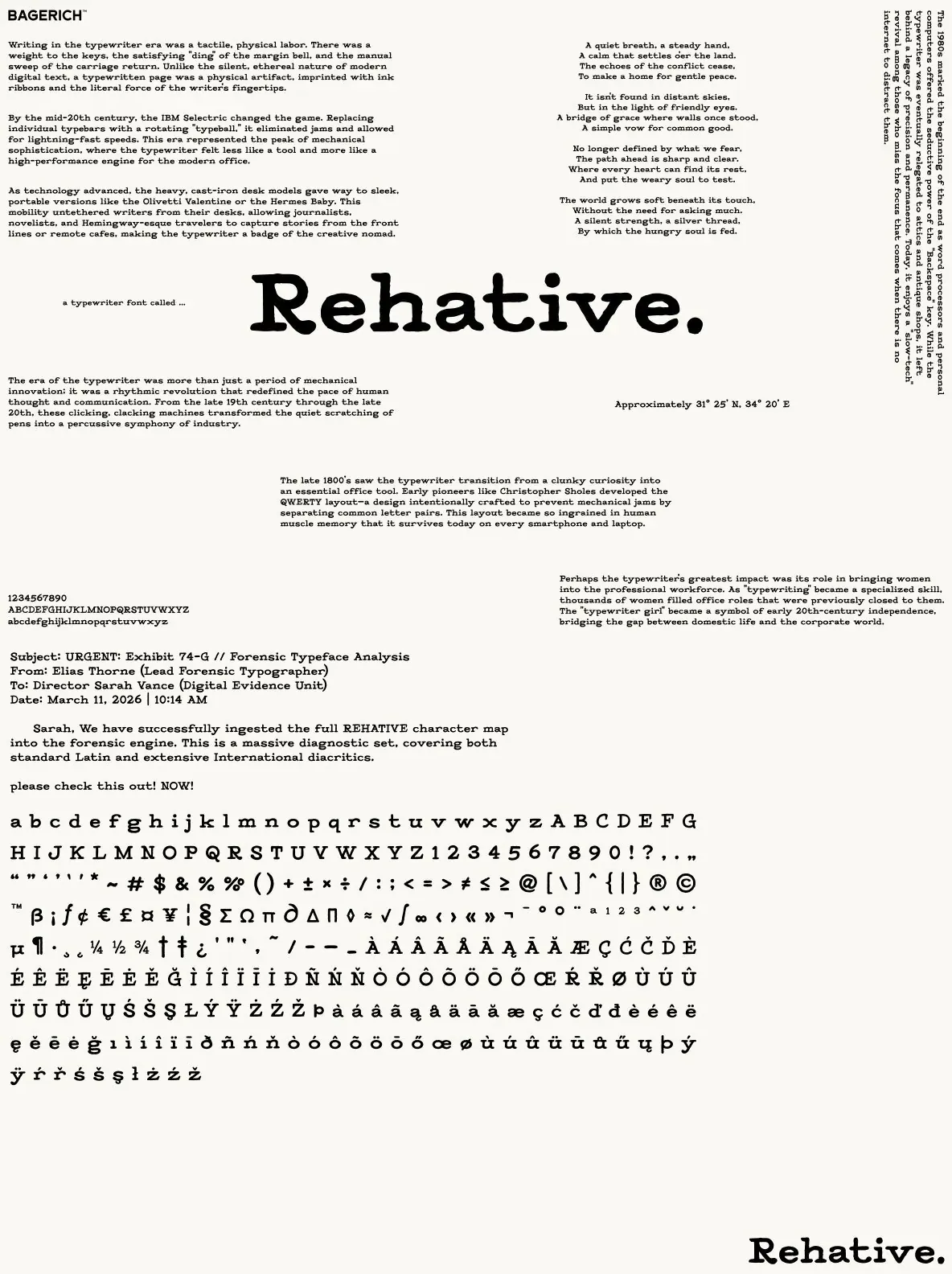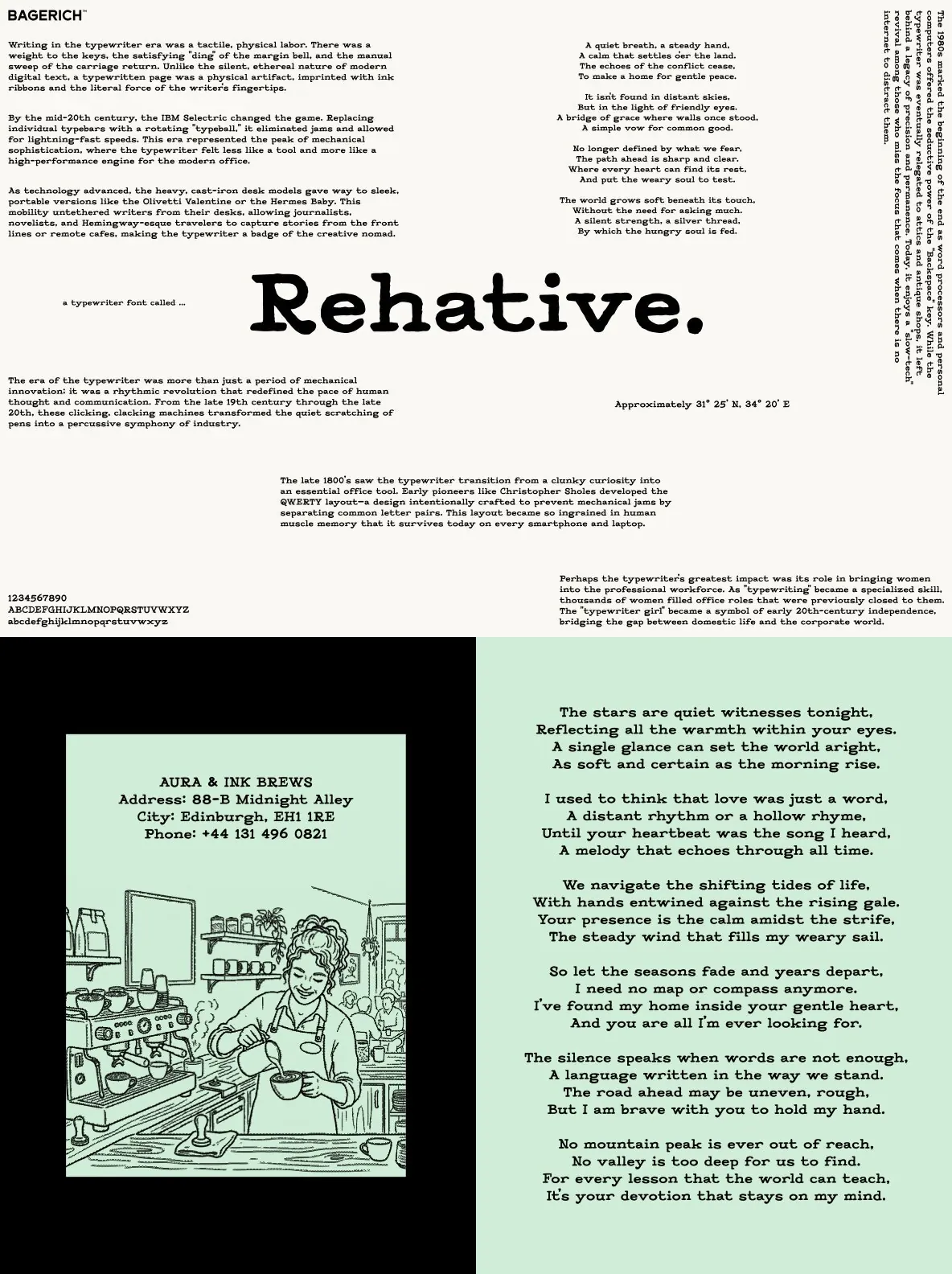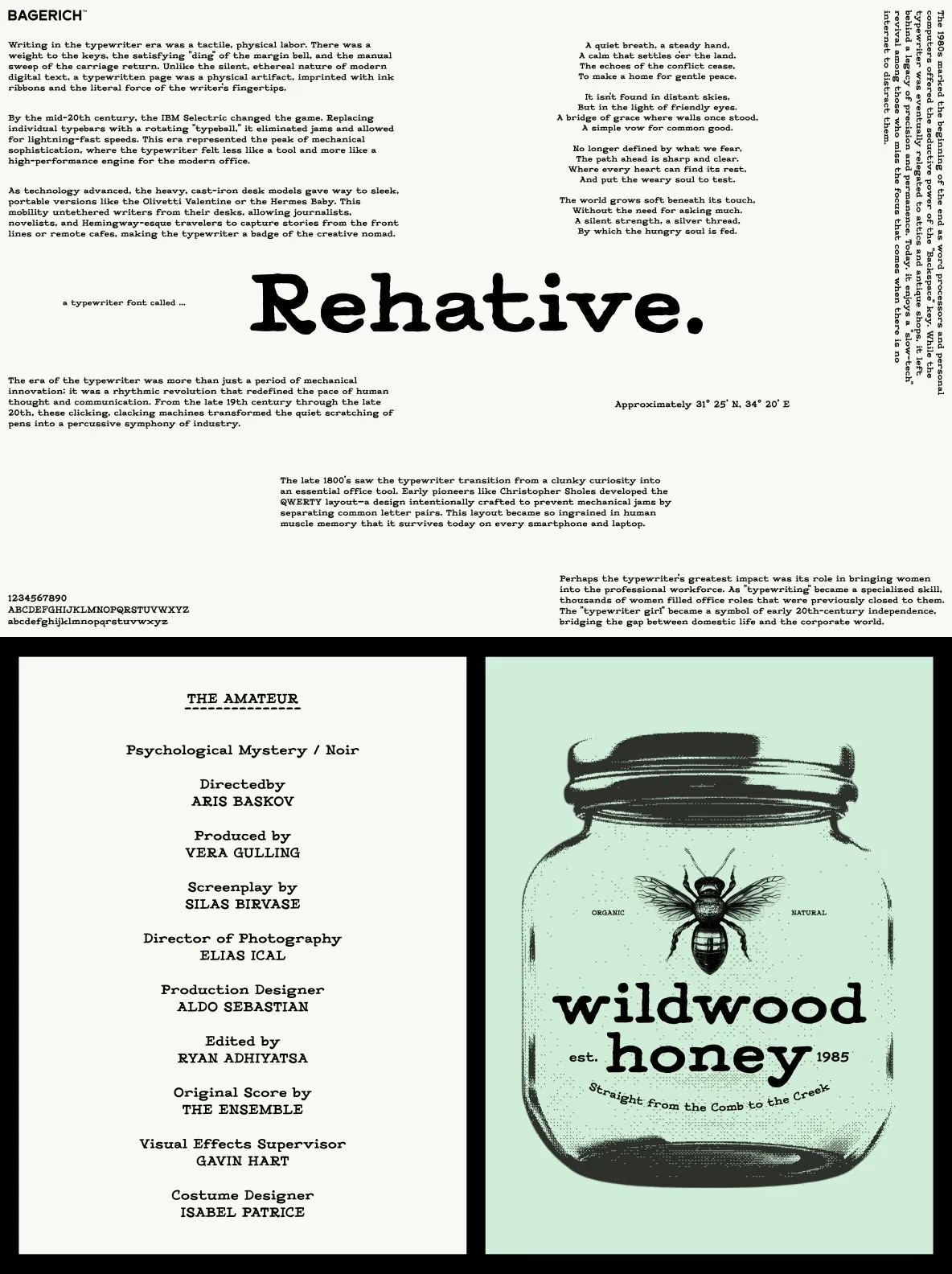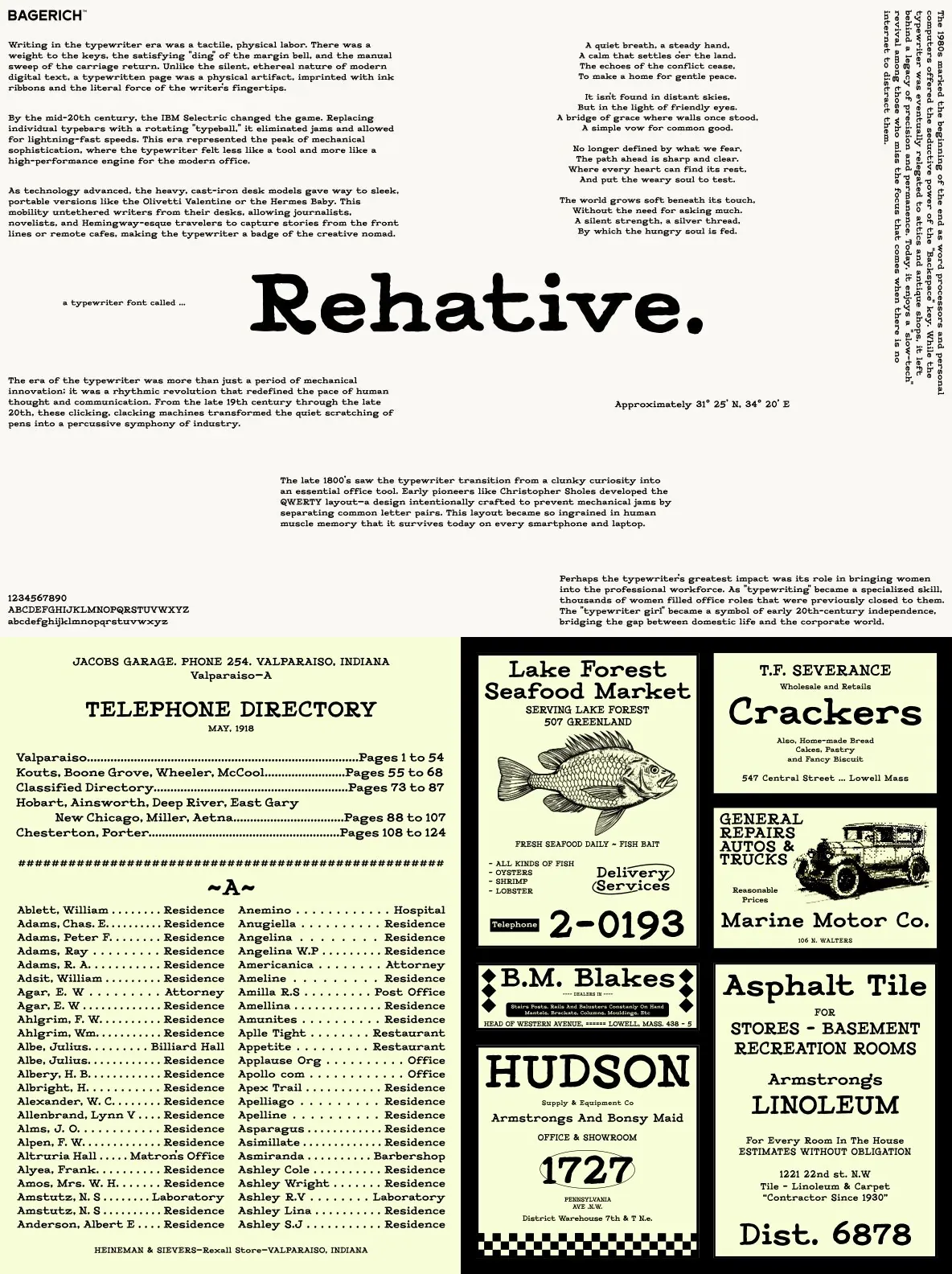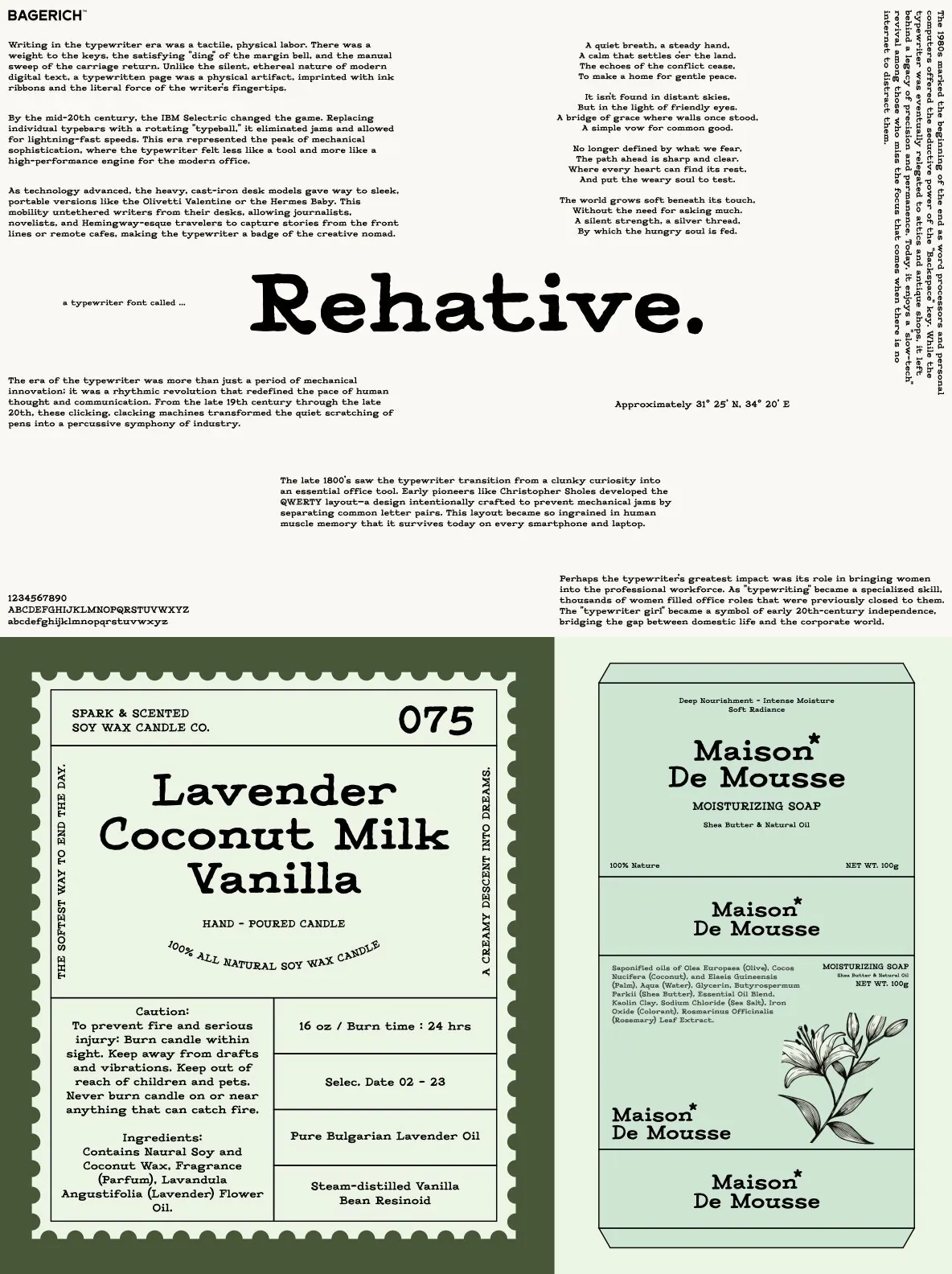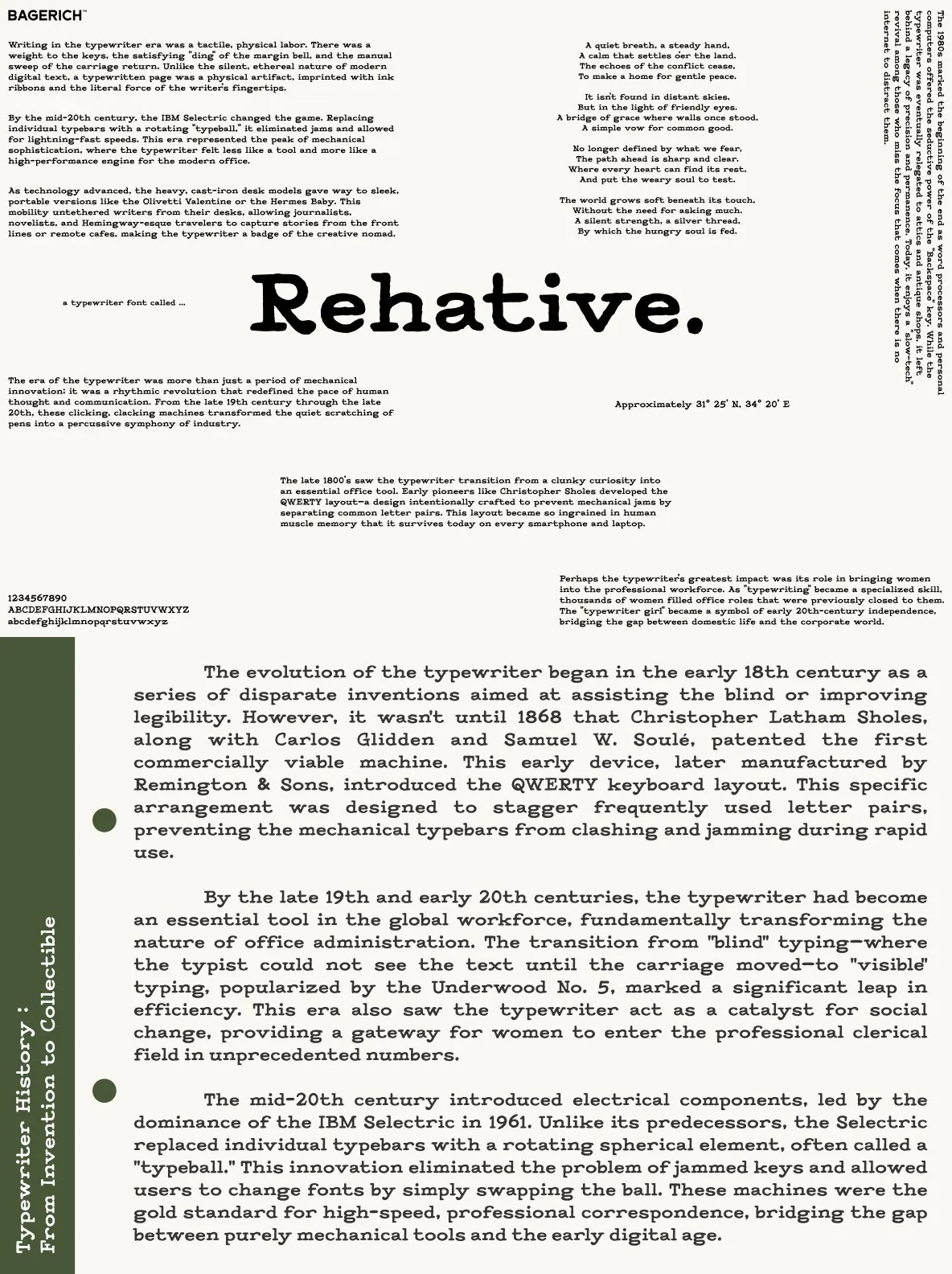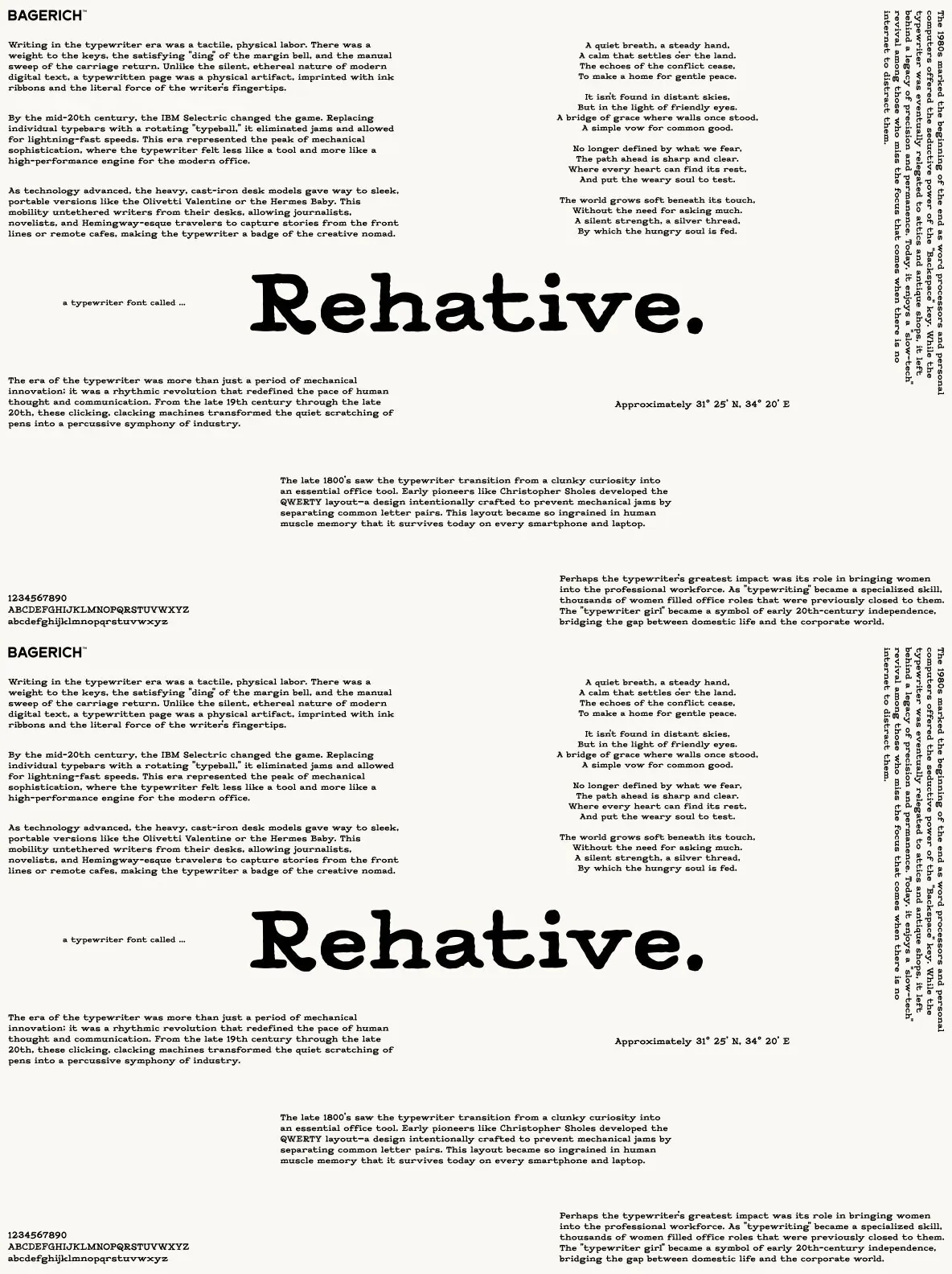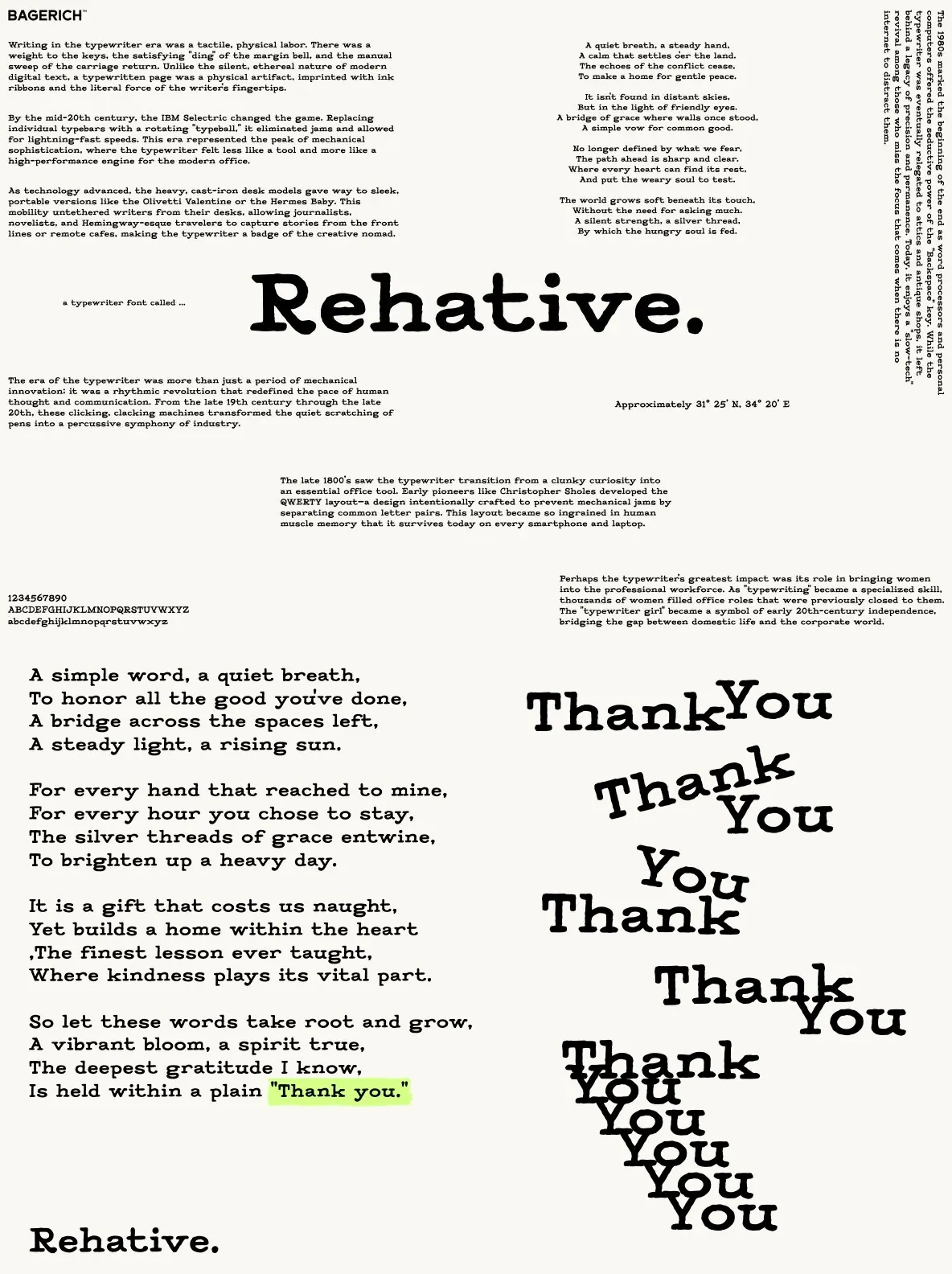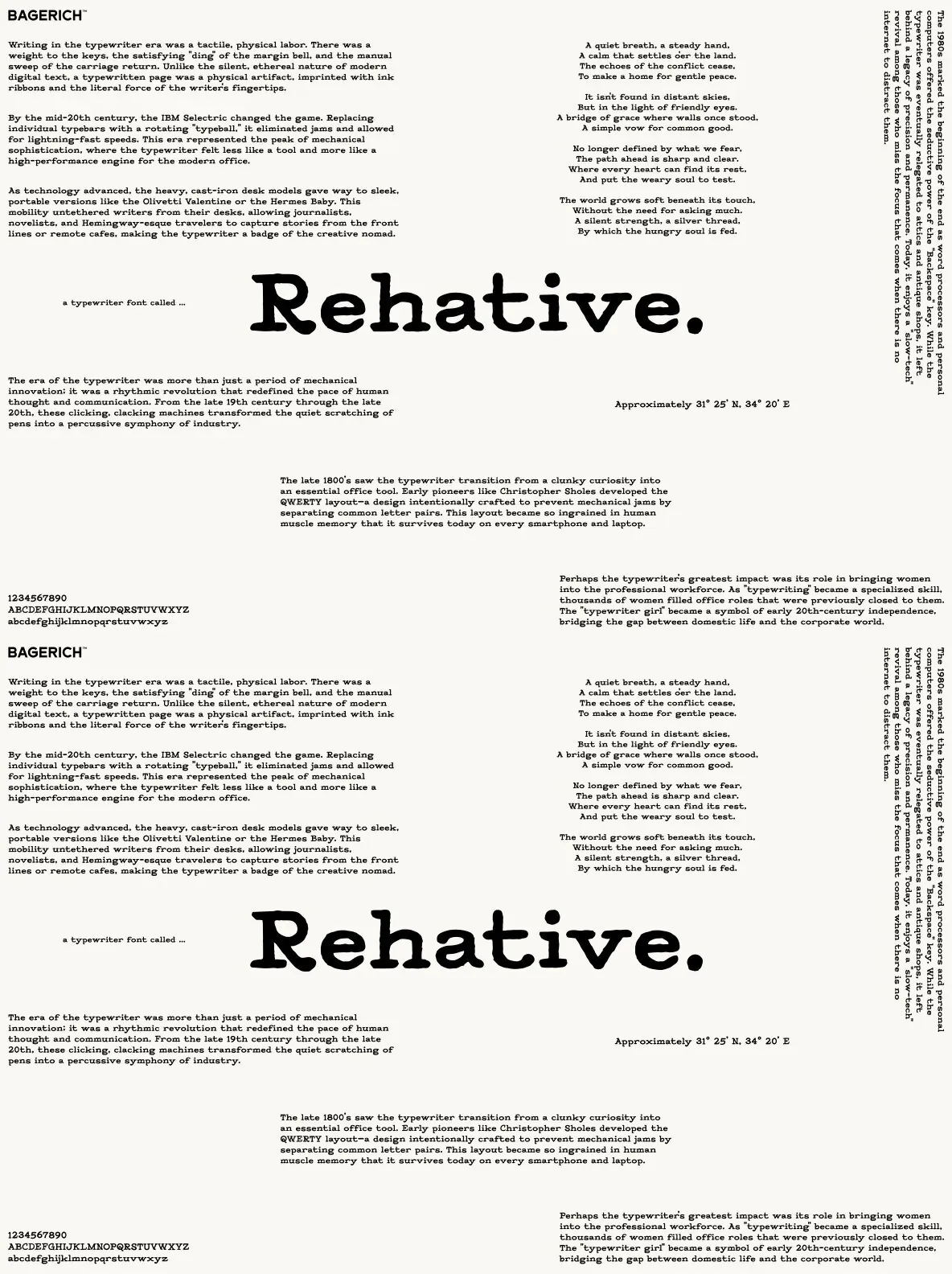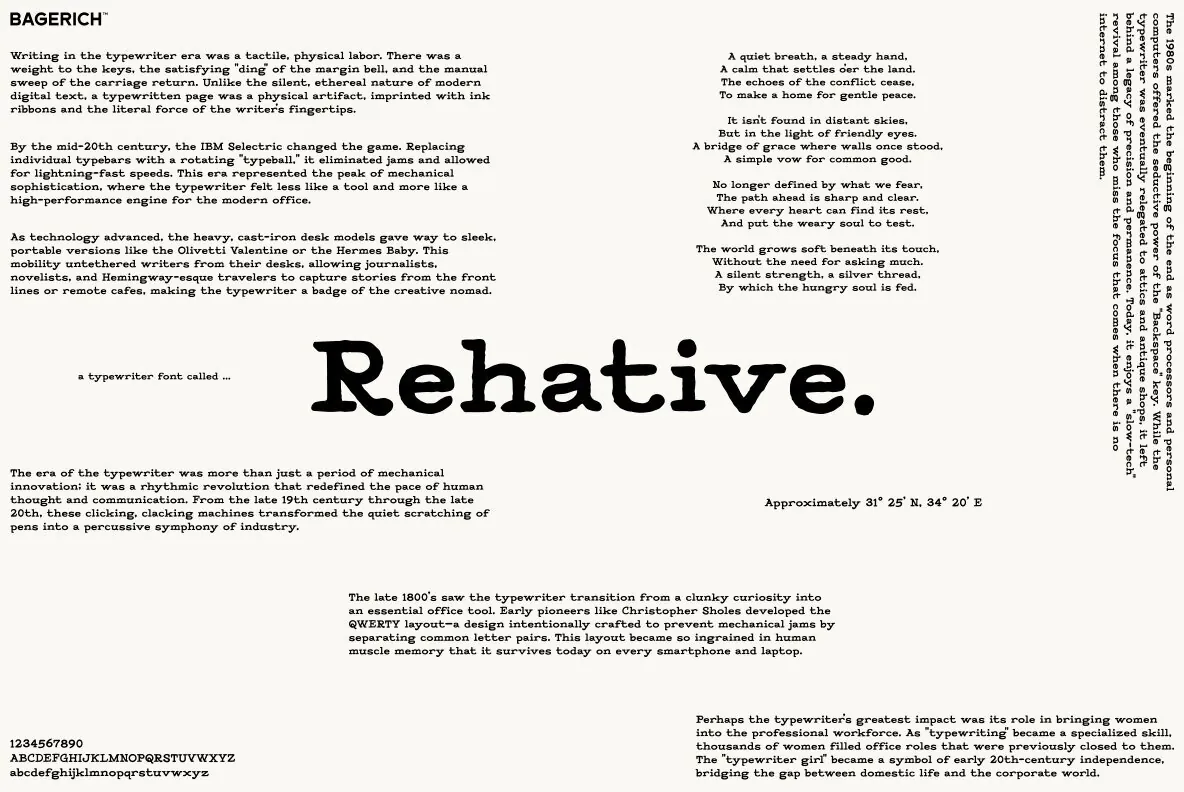
Rehative — Typewriter Weight, Modern Poise
Rehative is a masterful serif typeface that captures the tactile, rhythmic essence of the mechanical typewriter era. It bridges mid-century industrial utility and modern creative sophistication, with echoes of the heavy, cast-iron reliability found in machines like the Hermes Baby and Olivetti Valentine. Its deliberate weighting and distinct ink-on-paper feel give digital text the presence of a physical artifact.
Designed for those drawn to the slow-tech revival, Rehative suits work where focus matters and every character feels earned—like a manual keystroke. Use it for editorial layouts, nostalgic branding, and storytelling, where it brings a percussive symphony to the screen. Whether you are channeling a Hemingway-esque traveler or building a clean, modern interface with a vintage soul, Rehative balances sharp precision with organic warmth.
Rehative also celebrates the legacy of the QWERTY layout and the legendary IBM Selectric. It gives the creative nomad a versatile tool that stands out with the permanence and authority of a typewritten page.